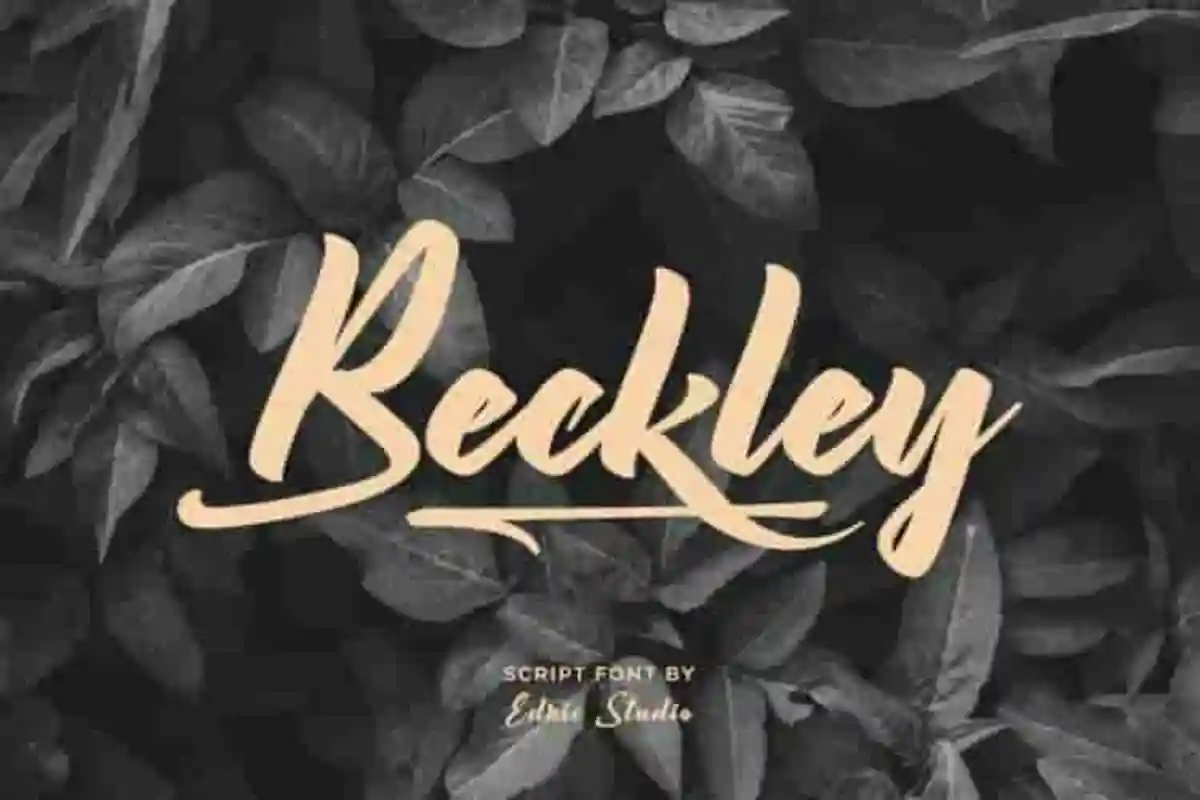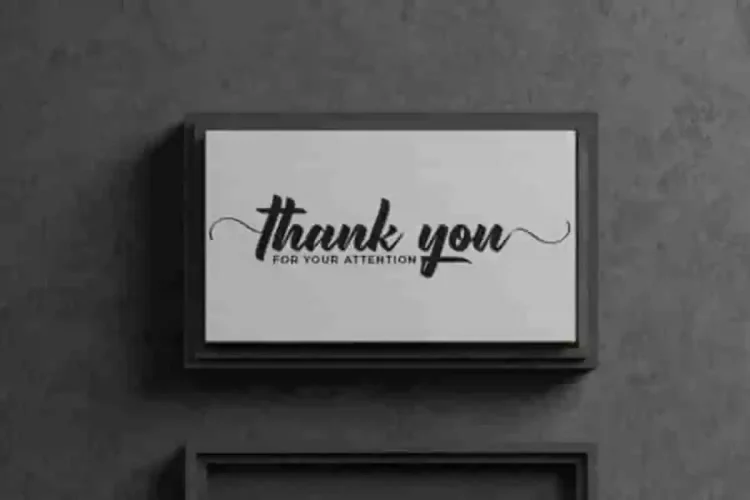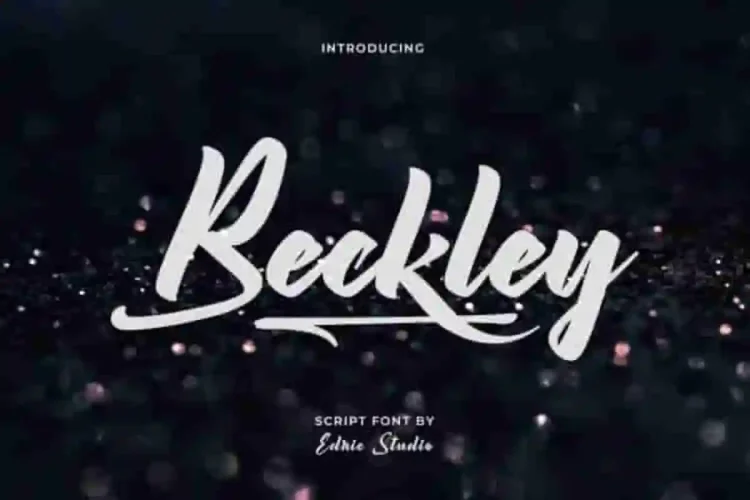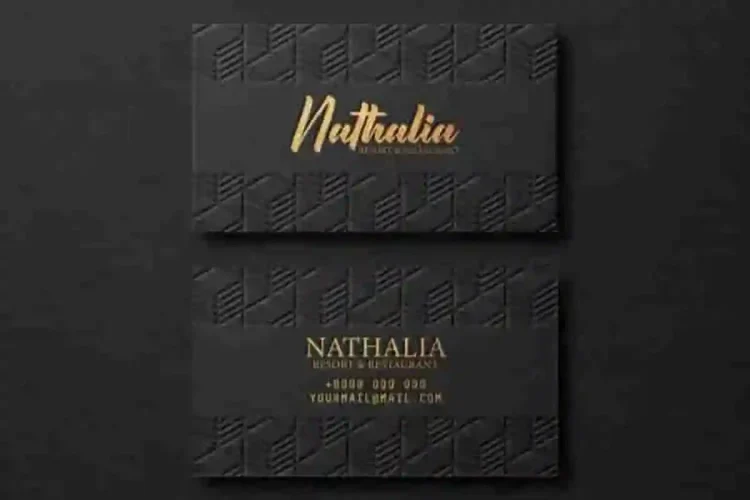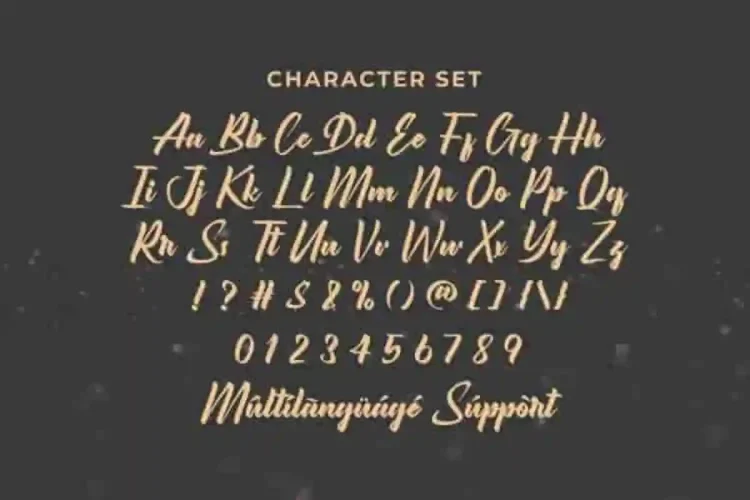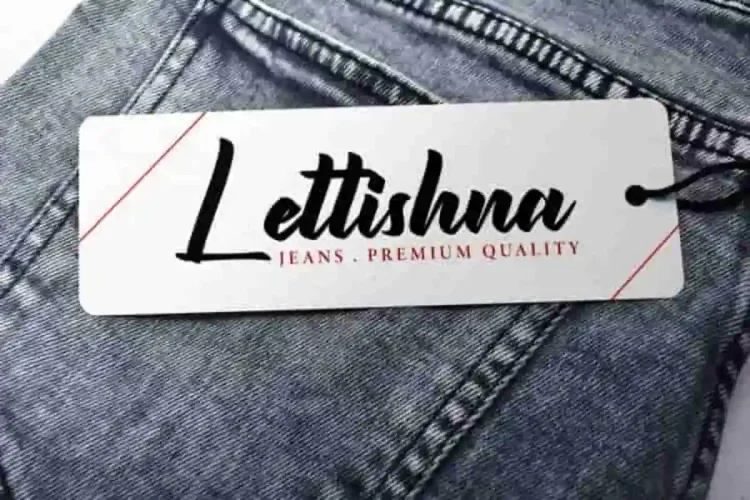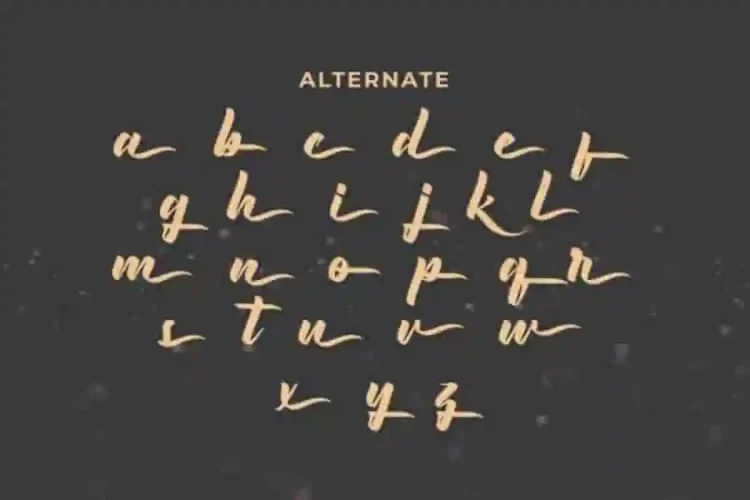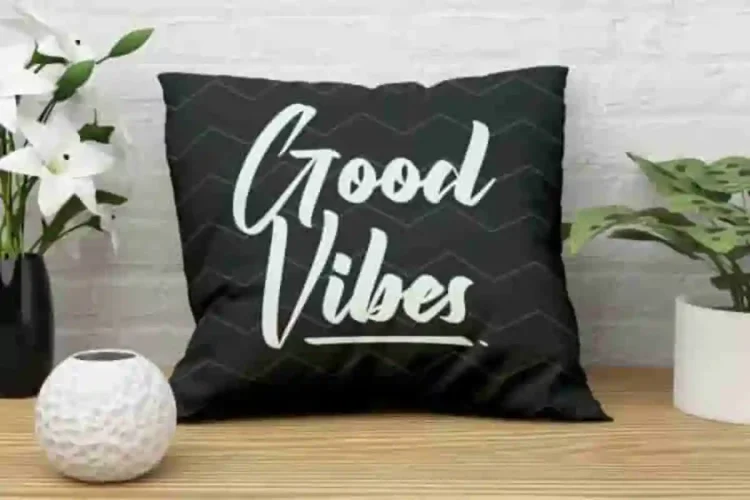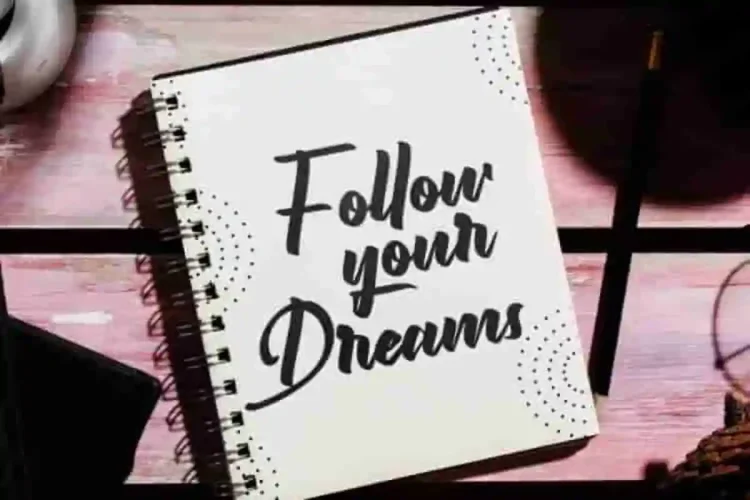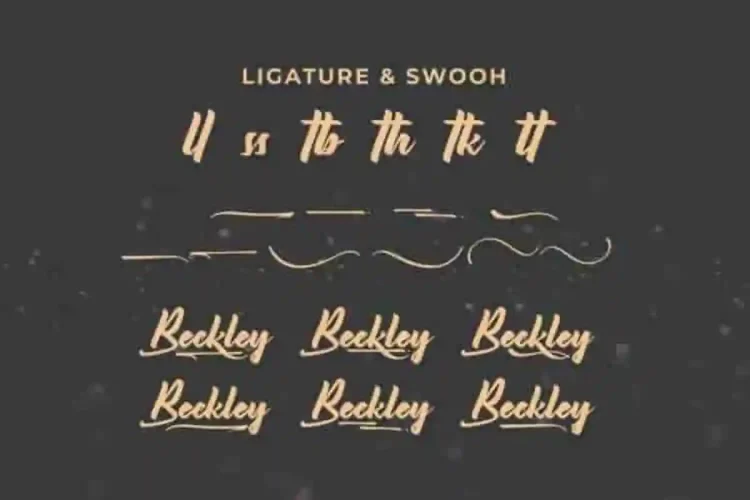
Beckley Calligraphy Script Font
Beckley is a curly font script with simple handwriting style, handcrafted from our Studio here in Indonesia. Beckley Calligraphy Font Beckley delivers a natural handwritten look that blends simplicity with sophistication It has a stunning characters set, perfectly managed with well spaced and kerning. This calligraphy font is stylish, elegant, clean, and timeless—making it ideal for modern branding and creative projects.
Beckley Font has unique brush calligraphy style. The font will be great for any projects (with extended license) including : branding, logo, stationery, business card, signage, flyer, brochure etc.